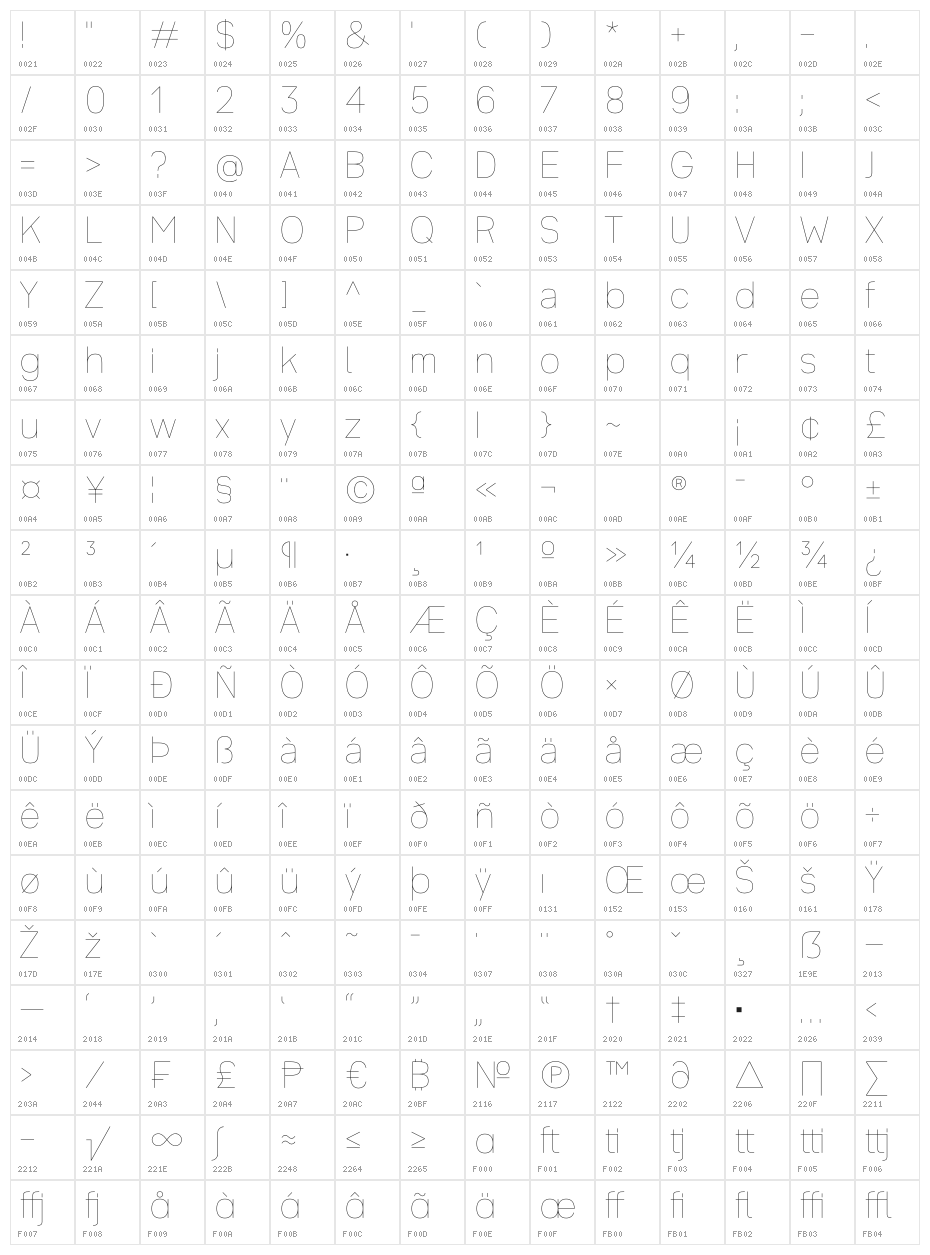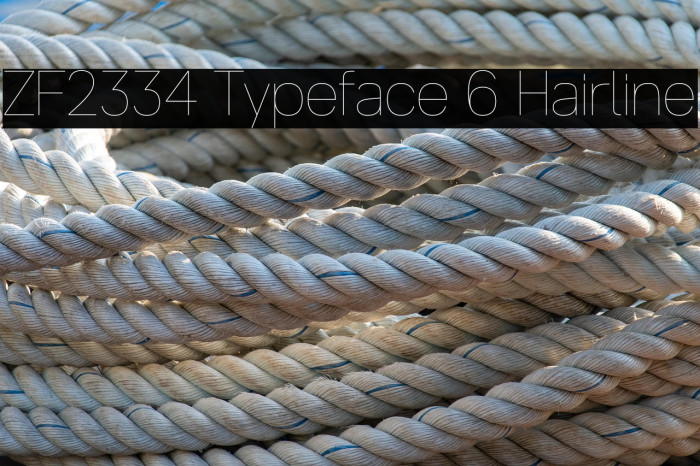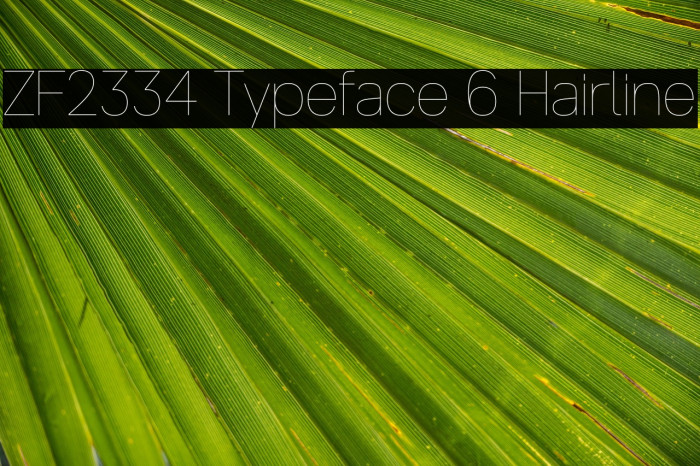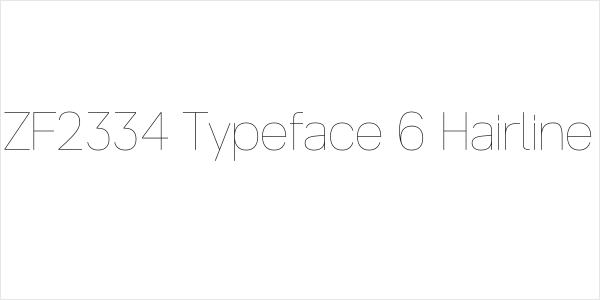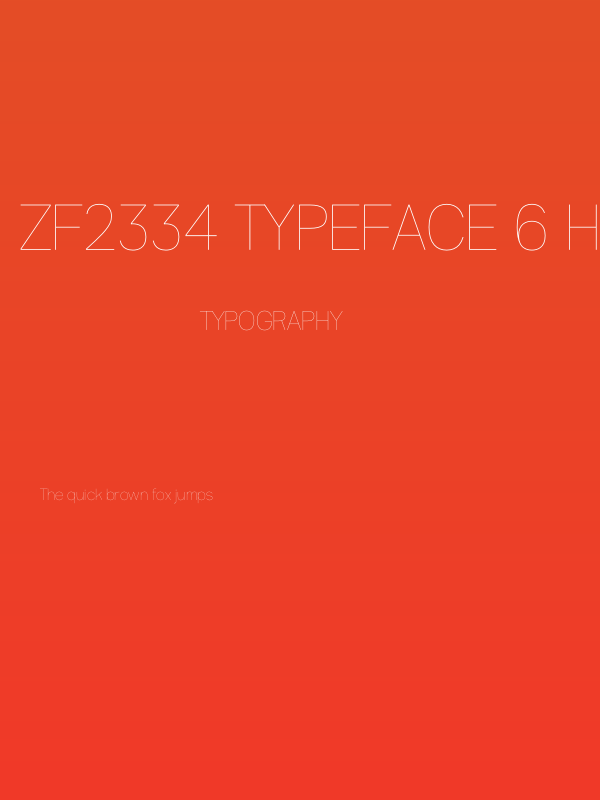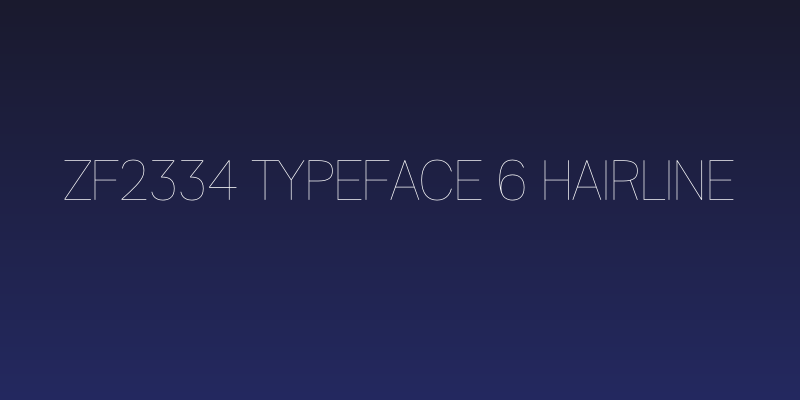
ZF2334 Typeface 6 Hairline Font
✎ Sans Serif
ZF2334 Typeface 6 Hairline Description
This typeface features extremely thin strokes, giving it a delicate and refined appearance. The characters are elegantly crafted with a consistent hairline weight throughout, making it ideal for minimalist designs. The uppercase and lowercase letters maintain a uniform style, while the numerals and special characters complement the overall aesthetic. The font's airy and light nature makes it suitable for projects that require a subtle yet sophisticated touch.
| Use Case | Headlines, Logos |
| Proposed Projects | Ideal for luxury branding, high-end fashion magazines, elegant invitations, and minimalist web design. |